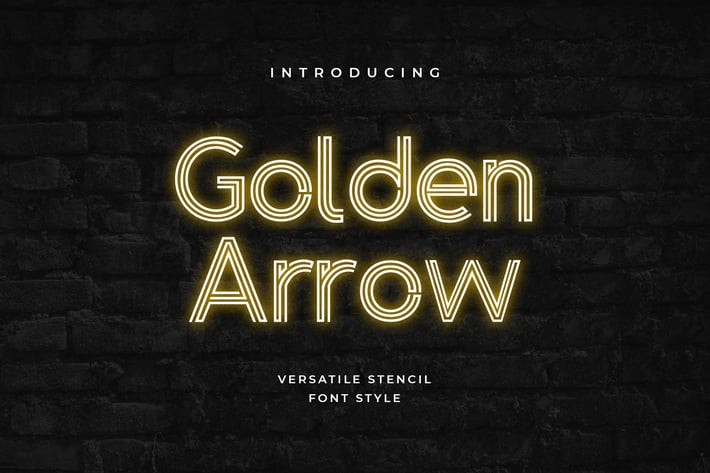
Golden Arrow Classy Modern Geometric Font
Golden Arrow Classy Modern Geometric Font are designed to blend soft curves, sharp straight lines, and acute angles. Font looks amazing as alone words and as full text blocks. Also it good for bright captions and logos.